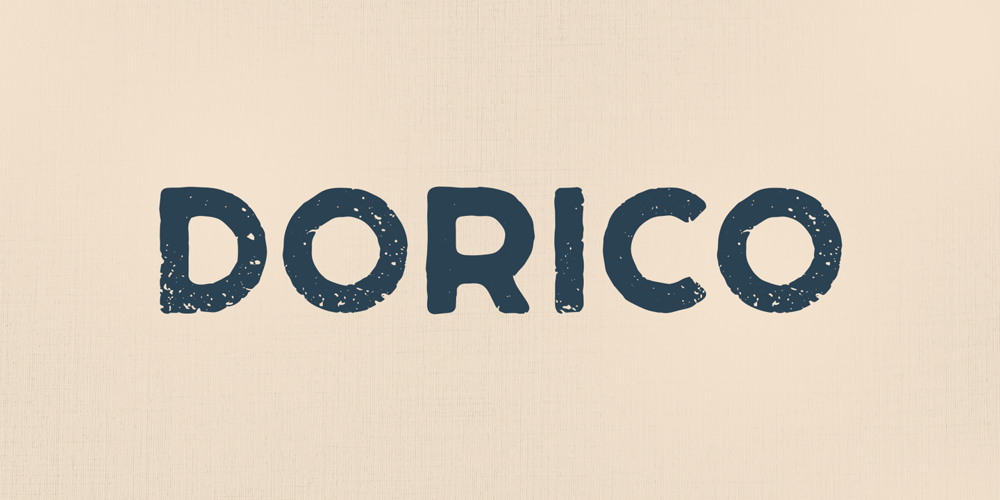
Dorico Font Family was designed by Vladimir Fedotov, Plamen Petrov and published by VP Creative Shop. Dorico contains 2 styles and family package options. Introducing Lagom VP TypefaceLagom is perfect for branding projects, home-ware designs, product packaging, magazine headers – or simply as a stylish text overlay to any background image.